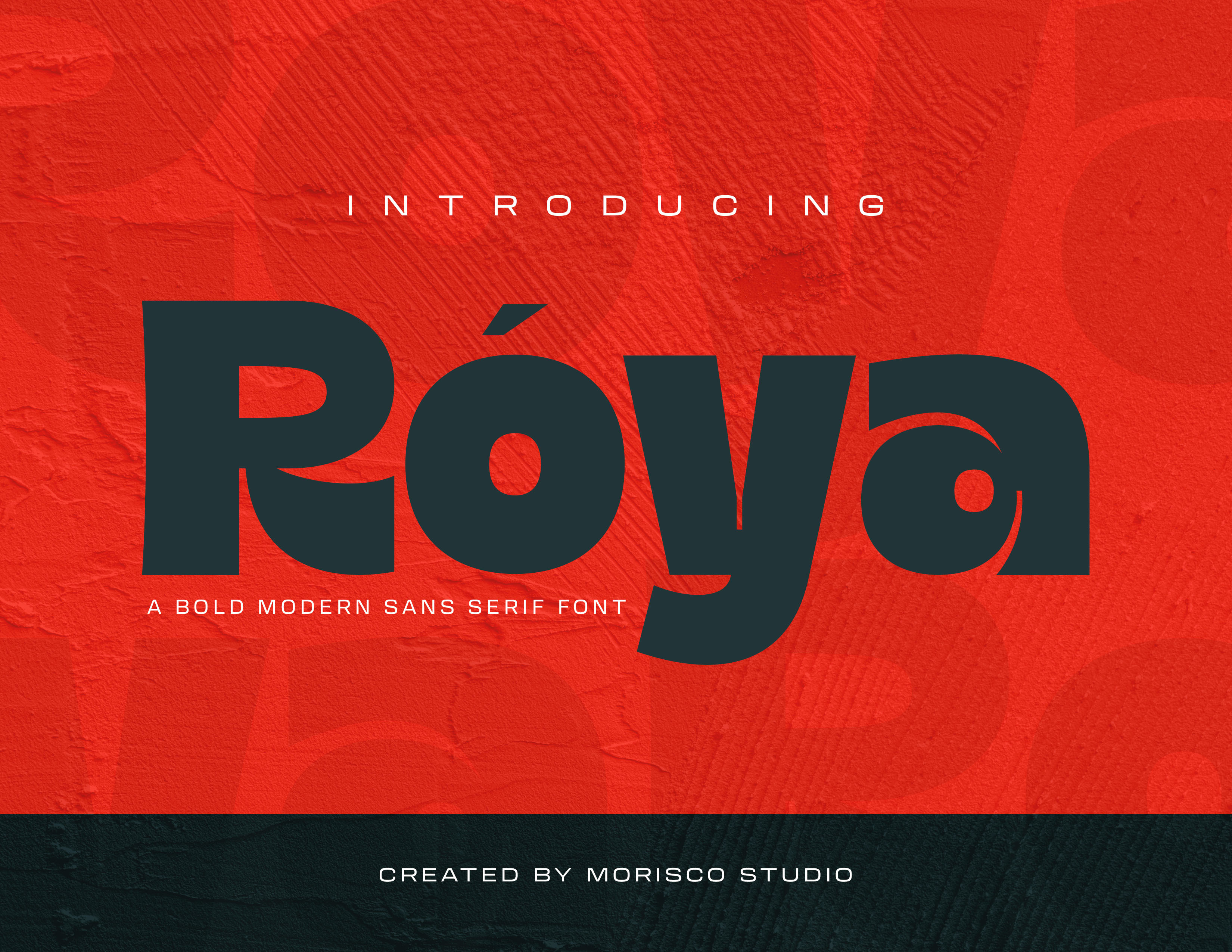
Roya - Bold Font
Roya is a bold font with a unique character designed by Morisco Studio. This typeface is well-suited for headlines and any project, like branding, print templates, logos, and more.